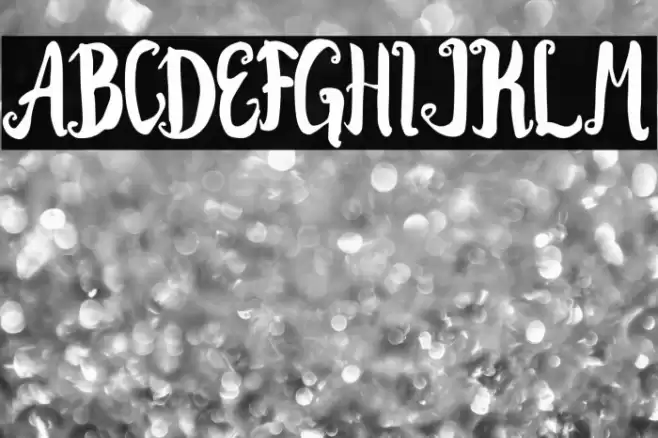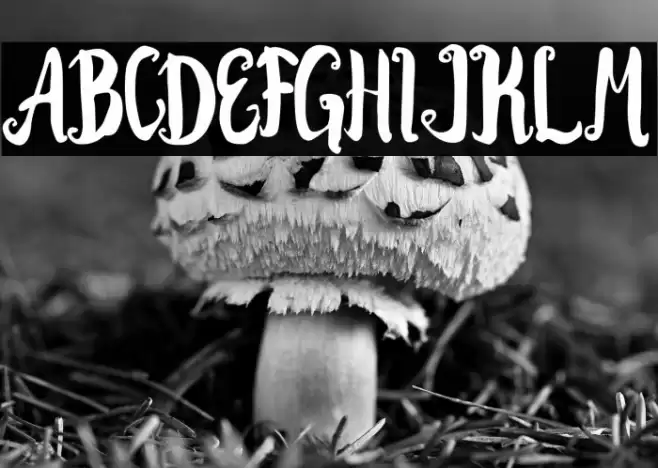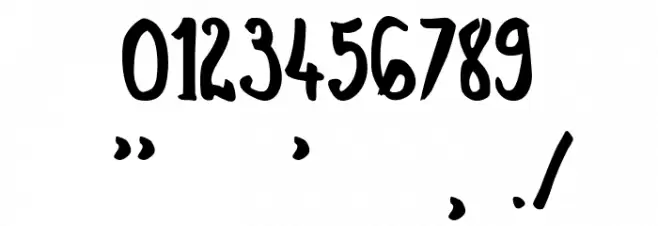
Kracktone Font
Kracktone Description
This font features a whimsical and playful design with a decorative flair. The characters are bold and have unique, curly embellishments that give them a lively and artistic appearance. The uppercase letters are particularly ornate, with each letter having distinct loops and swirls that add to the font's charm. The lowercase letters maintain a consistent style, complementing the uppercase with their own subtle curves. Numbers and special characters are designed to match the overall playful theme, making this font suitable for creative and fun projects. The font's style is eye-catching and can add a touch of personality to any design.
A whimsical and decorative font with playful, curly embellishments from Uncategorized fonts.
- Proposed Projects: Ideal for children's books, playful branding, party invitations, and creative posters.